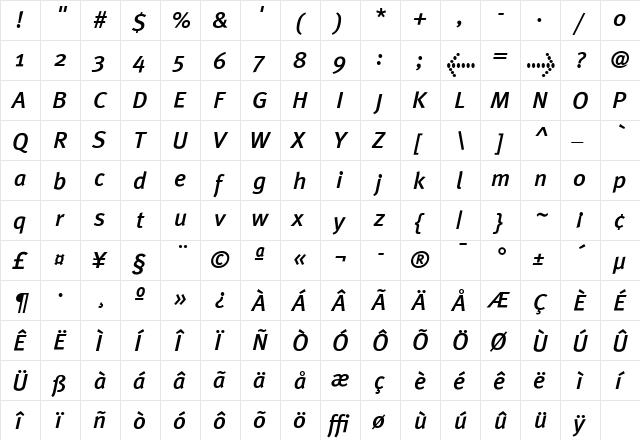
MetaPlus Medium Italic
Design Context for MetaPlus Typeface
MetaPlus is a composed and adaptable typeface that performs quietly and consistently across a wide range of design contexts. Its italic angle brings a sense of urgency and motion to the letterforms.
Pro Tip: Try MetaPlus for annotation and caption copy alongside an upright companion — the contrast in angle creates a dynamic but ordered typographic system.